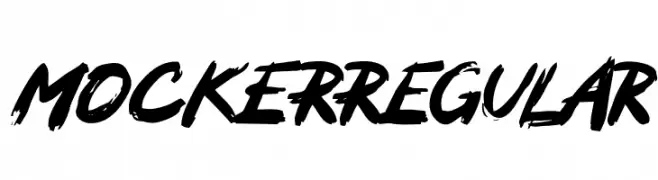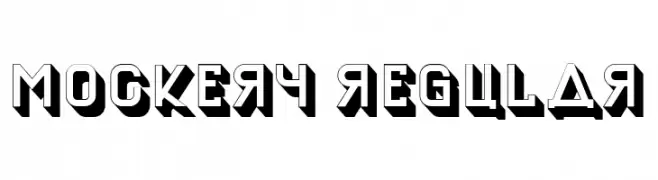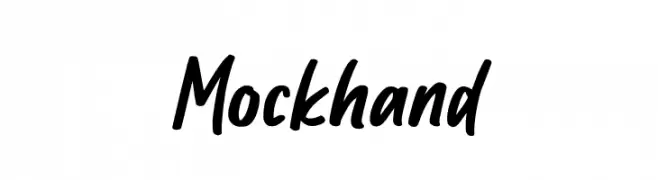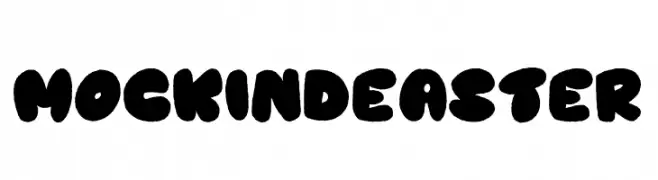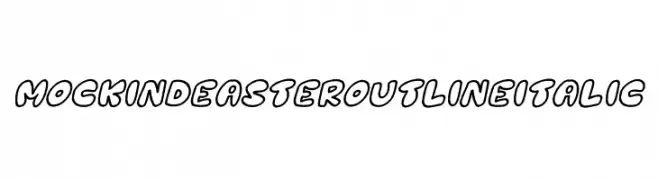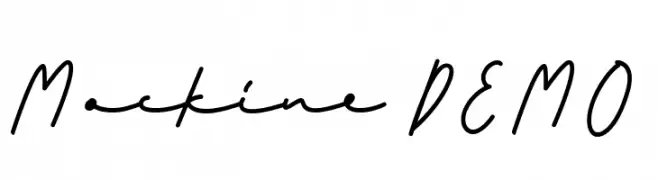
A bold, brush-style font with dynamic strokes and a graffiti-like appearance.
A bold, 3D geometric font with a strong shadow effect.
A playful, hand-drawn font with bold, rounded characters and a whimsical style.
A lively, handwritten font with fluid strokes and a casual, playful style.
A bold, handwritten font with fluid strokes and a playful style.
A playful, bold font with rounded, bubble-like characters.
A bold, playful, and slightly italicized font with rounded edges.
A playful, bold outline font with a bubble-like, whimsical style.
A playful, outlined, and slightly italic font with a bold and friendly appearance.
A fluid, elegant handwritten font with a consistent slant and smooth connections.